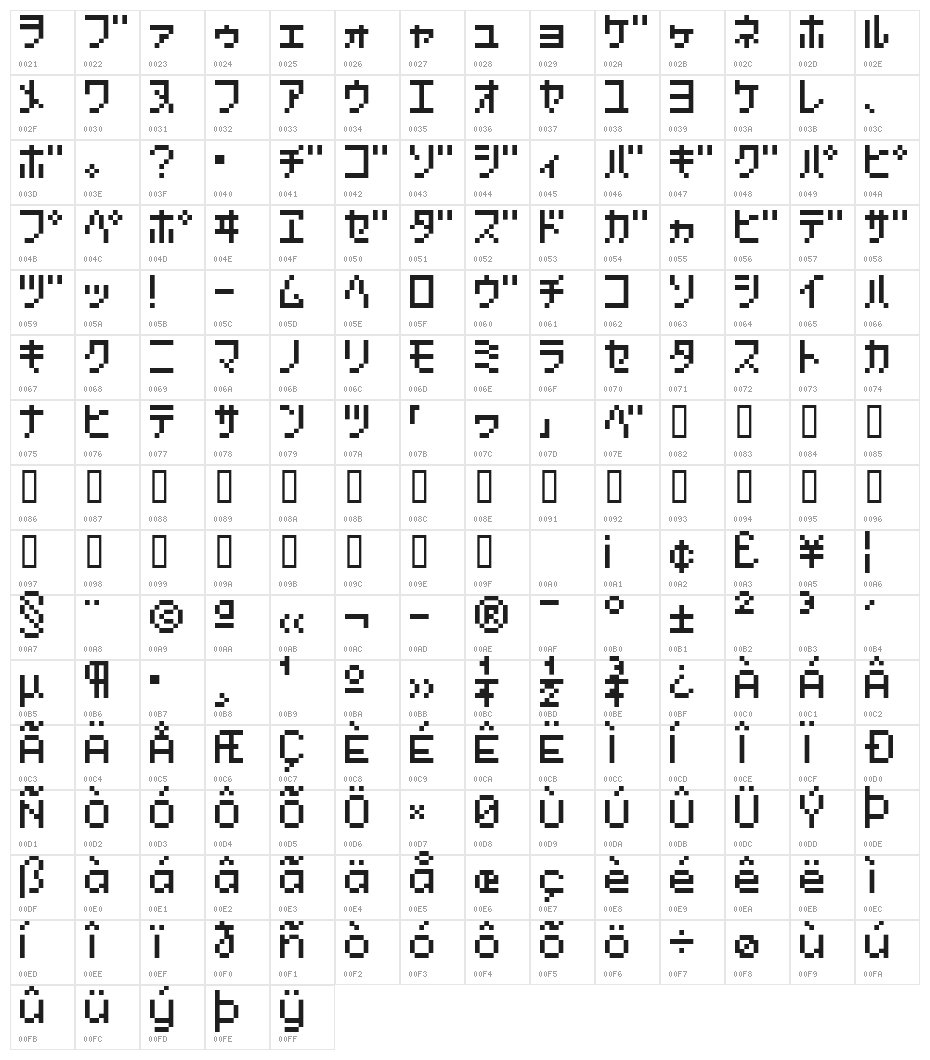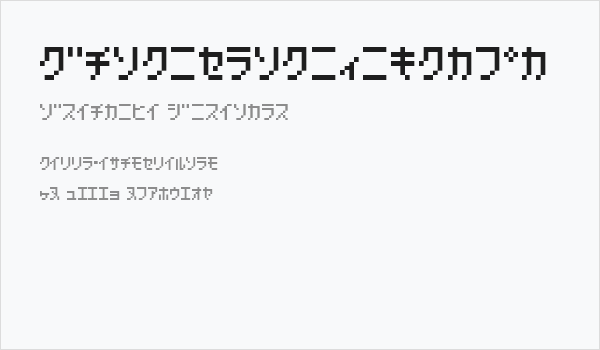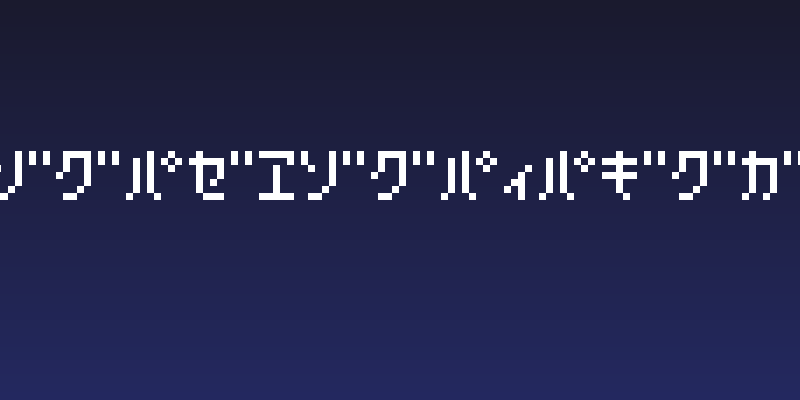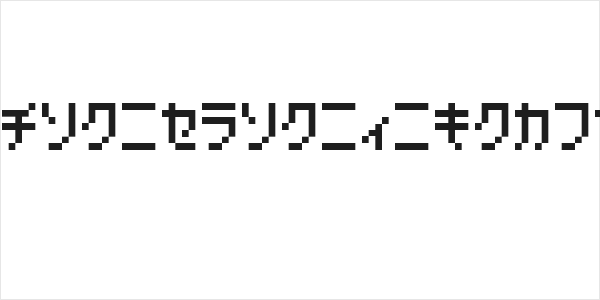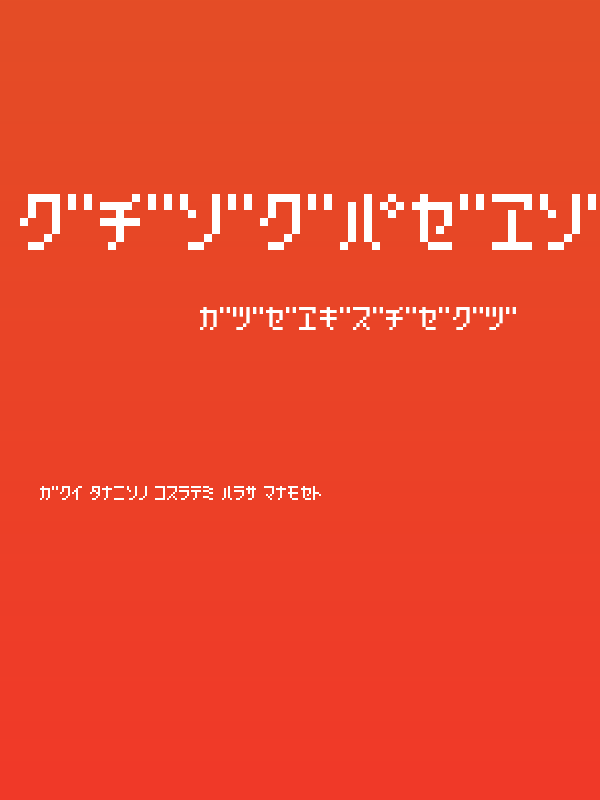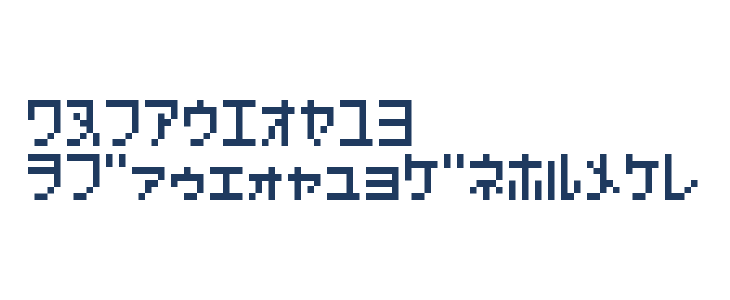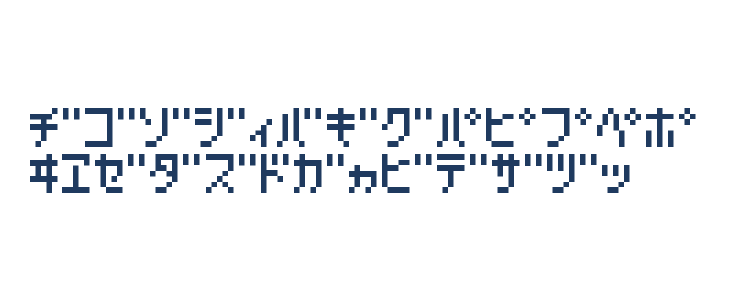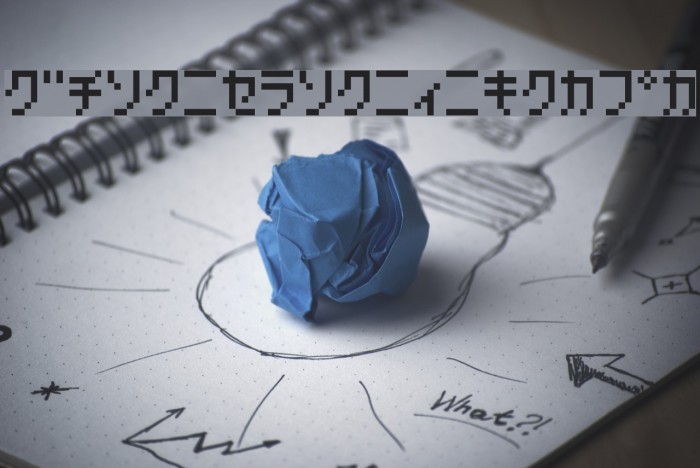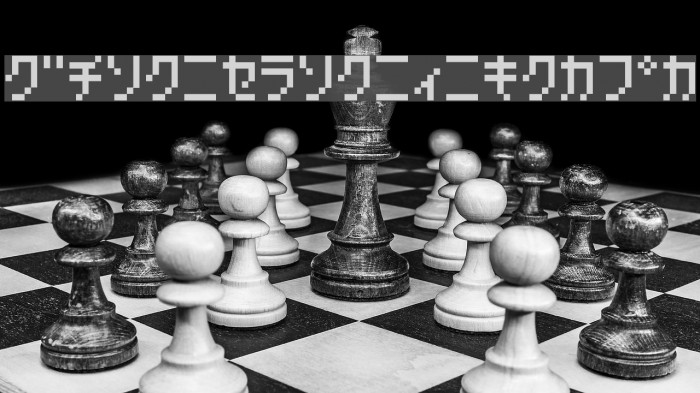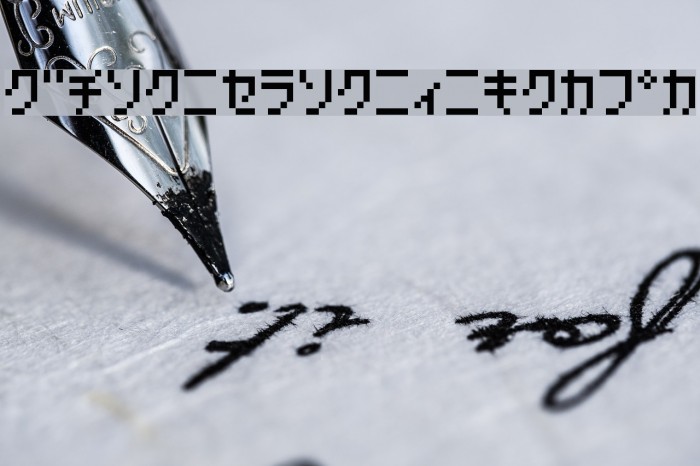
HachipochiEightKt Font
HachipochiEightKt Description
This font features a pixelated, blocky design reminiscent of early digital or video game typography. Each character is constructed with a grid-like precision, giving it a distinctly retro and digital appearance. The uniformity in stroke width across all characters contributes to a cohesive and consistent look. The font's geometric nature makes it highly legible at various sizes, although it is particularly striking in larger formats where its pixelated charm can be fully appreciated. The characters are evenly spaced, ensuring clarity and readability. This style is ideal for projects that aim to evoke nostalgia or a tech-oriented theme, such as video games, digital art, or retro-themed designs.
| Overall Style | Retro, Digital |
| Use Case | Headlines, Logos, Digital Art |
| Proposed Projects | Ideal for video games, digital art, retro-themed designs, and tech-oriented branding. |